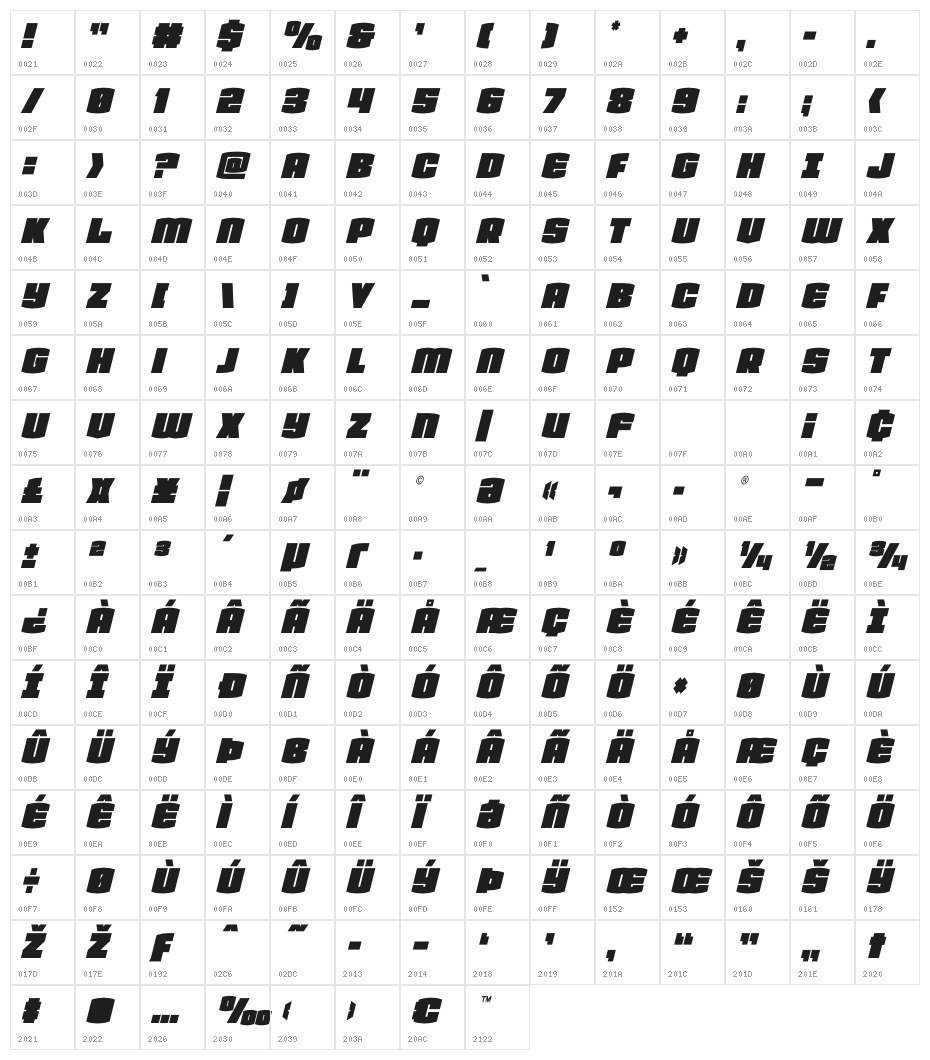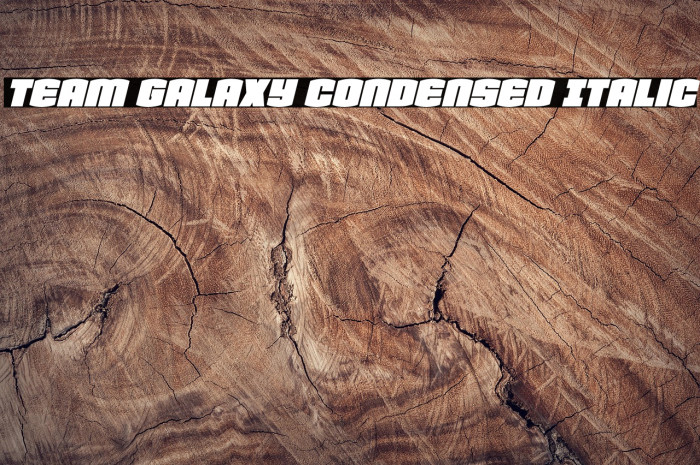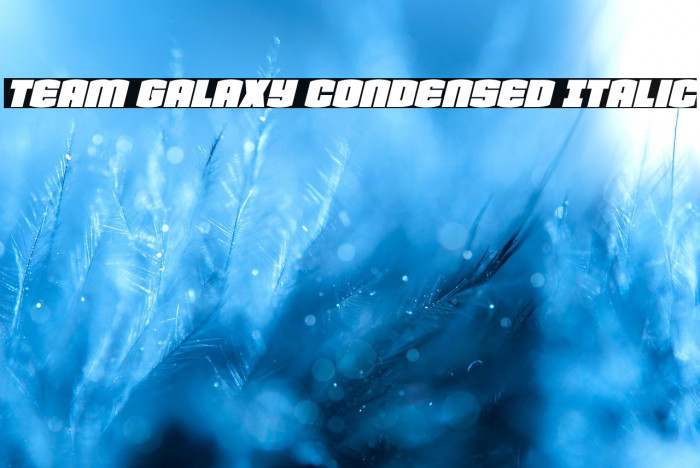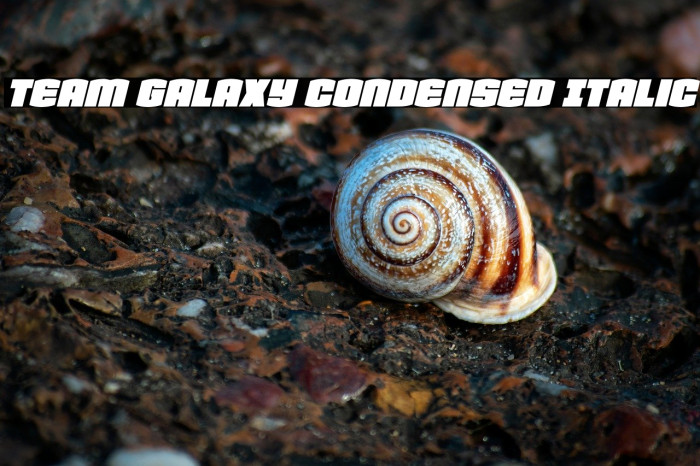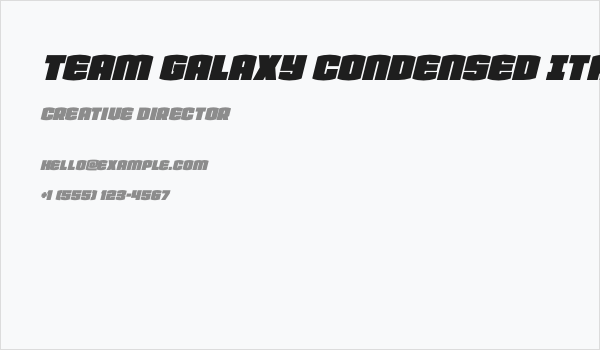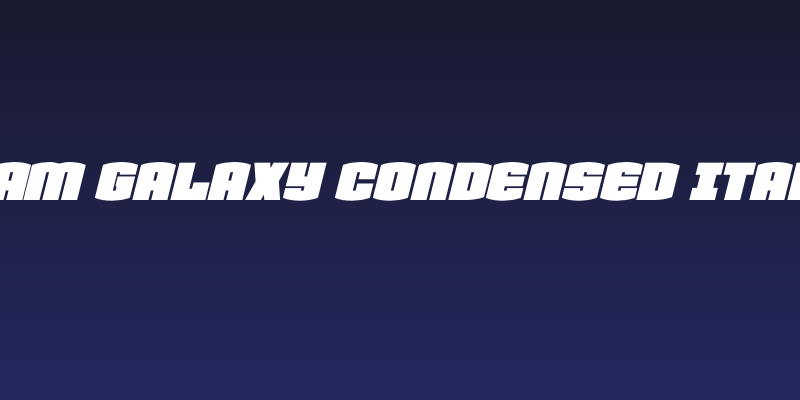
Team Galaxy Condensed Italic Font
Team Galaxy Condensed Italic Description
This font features a bold and dynamic style with a condensed and italicized form. The characters are robust and impactful, making them ideal for attention-grabbing designs. The angular cuts and sharp edges give it a futuristic and sporty feel, while the condensed width allows for efficient use of space. The italic slant adds a sense of motion and speed, enhancing its suitability for dynamic and energetic themes. The font maintains a consistent stroke thickness, contributing to its bold appearance, and the spacing between characters is tight, further emphasizing its compact nature.
| Overall Style | Futuristic, Sporty |
| Proposed Projects | Ideal for sports branding, event posters, dynamic logos, and futuristic designs. |